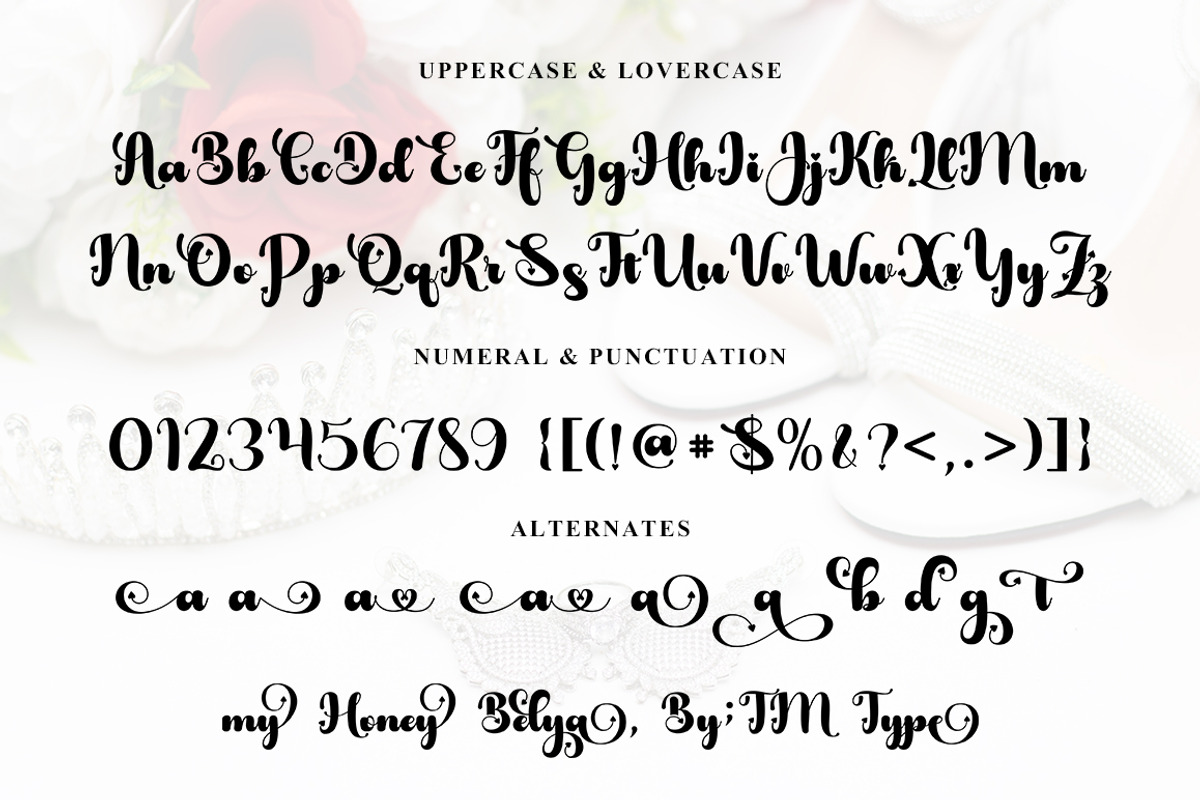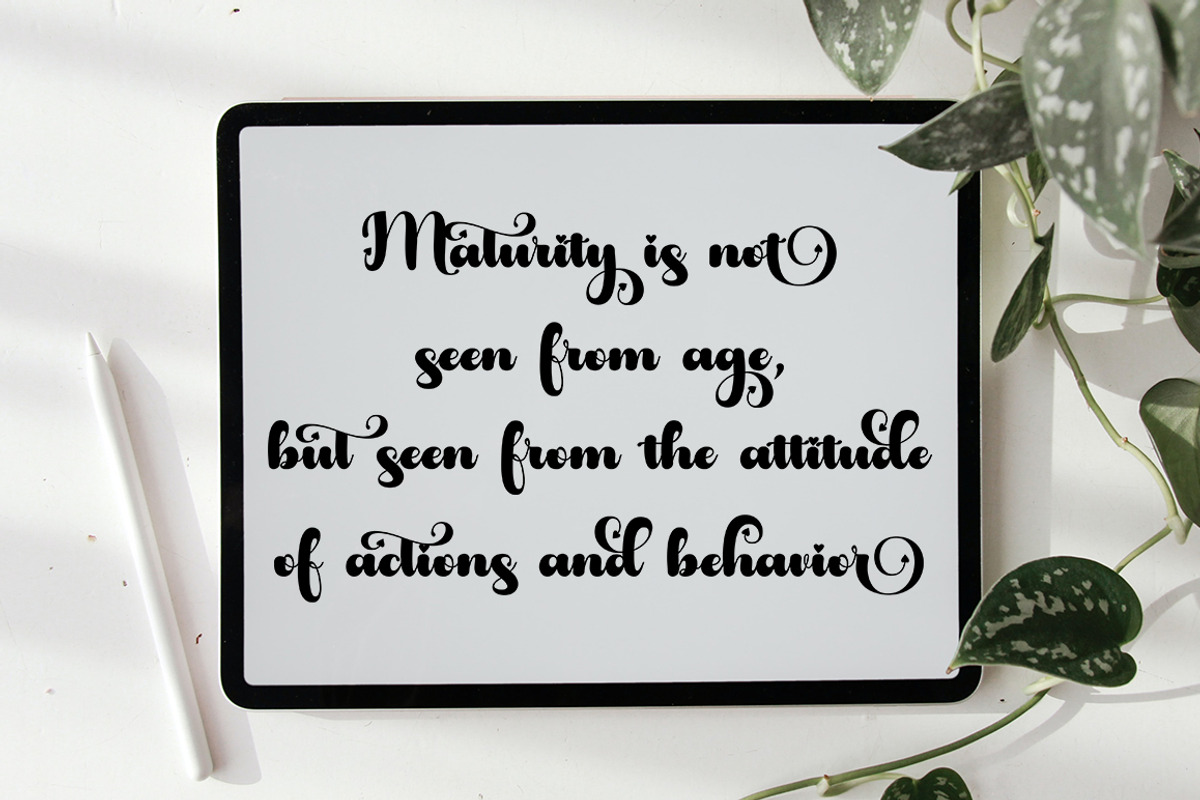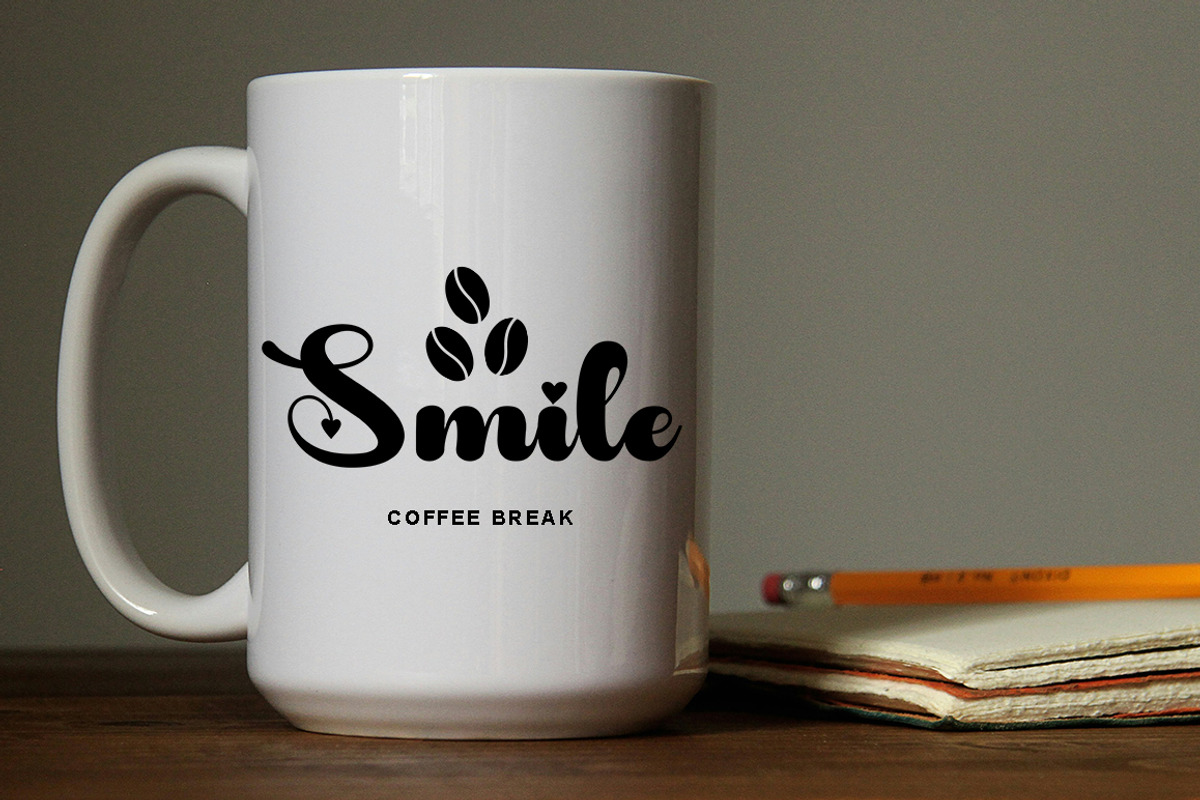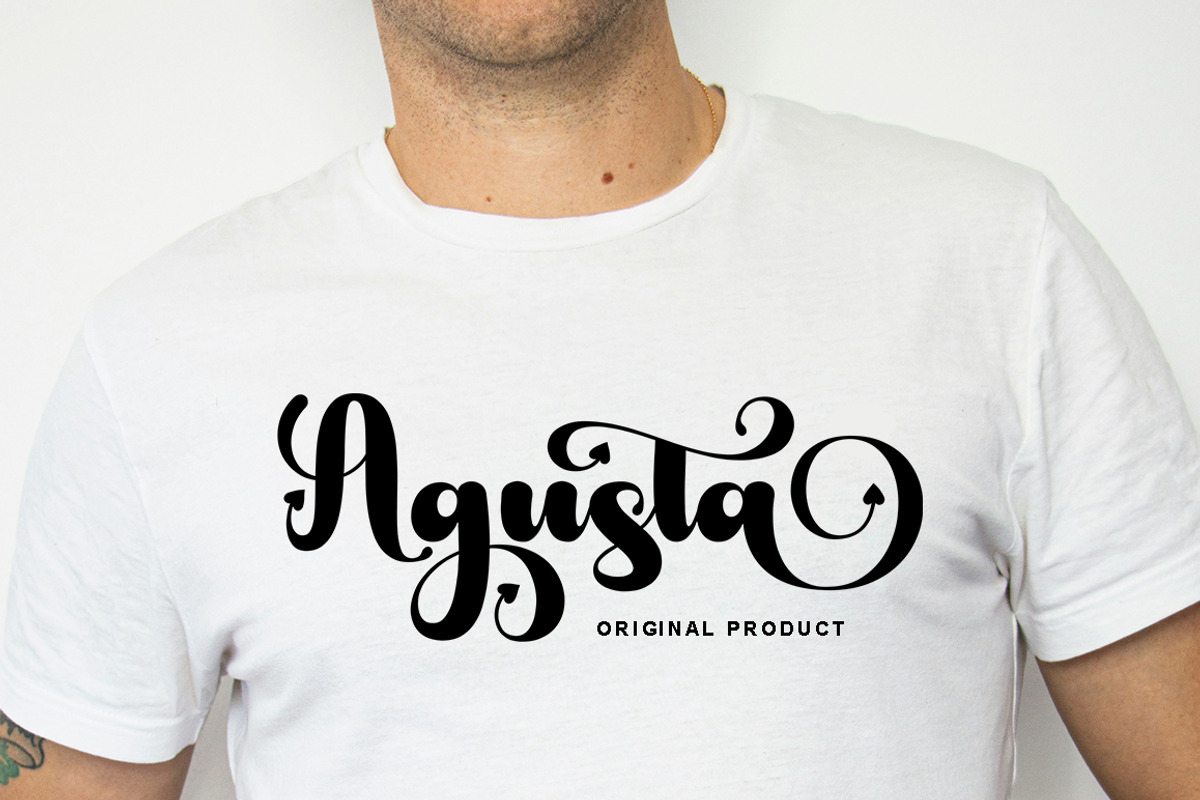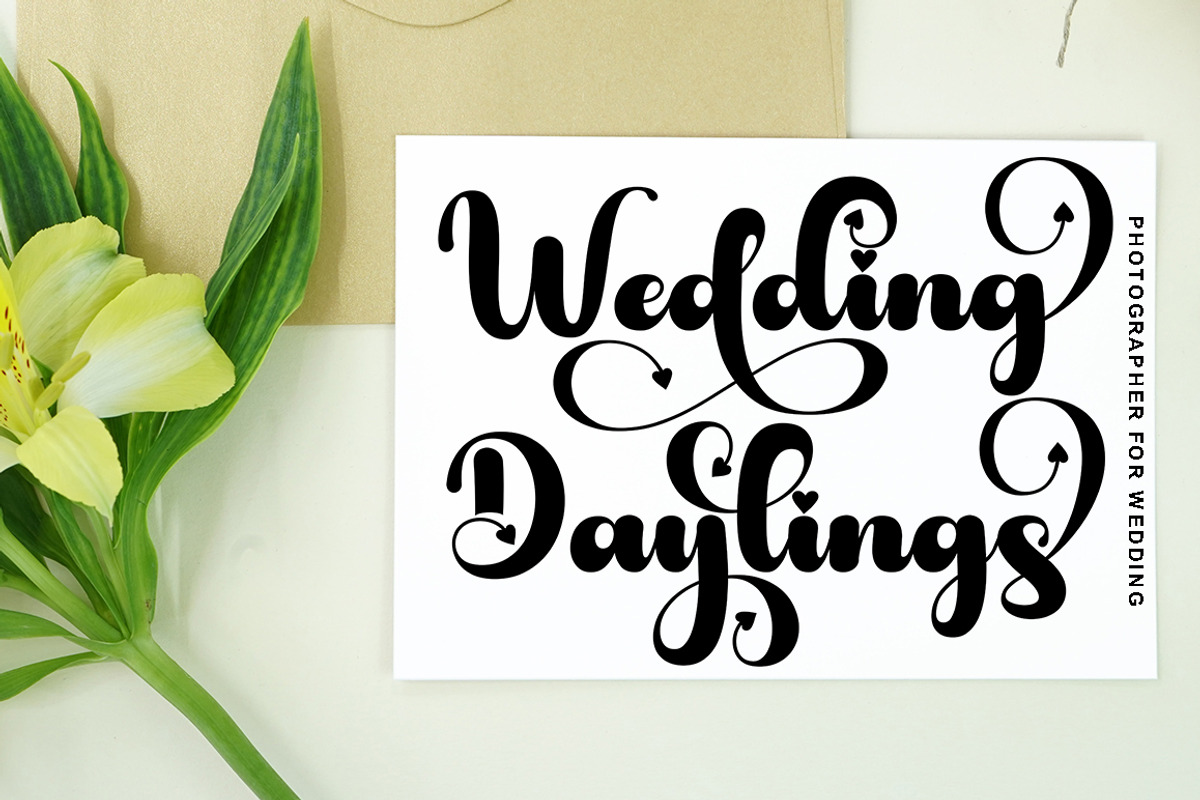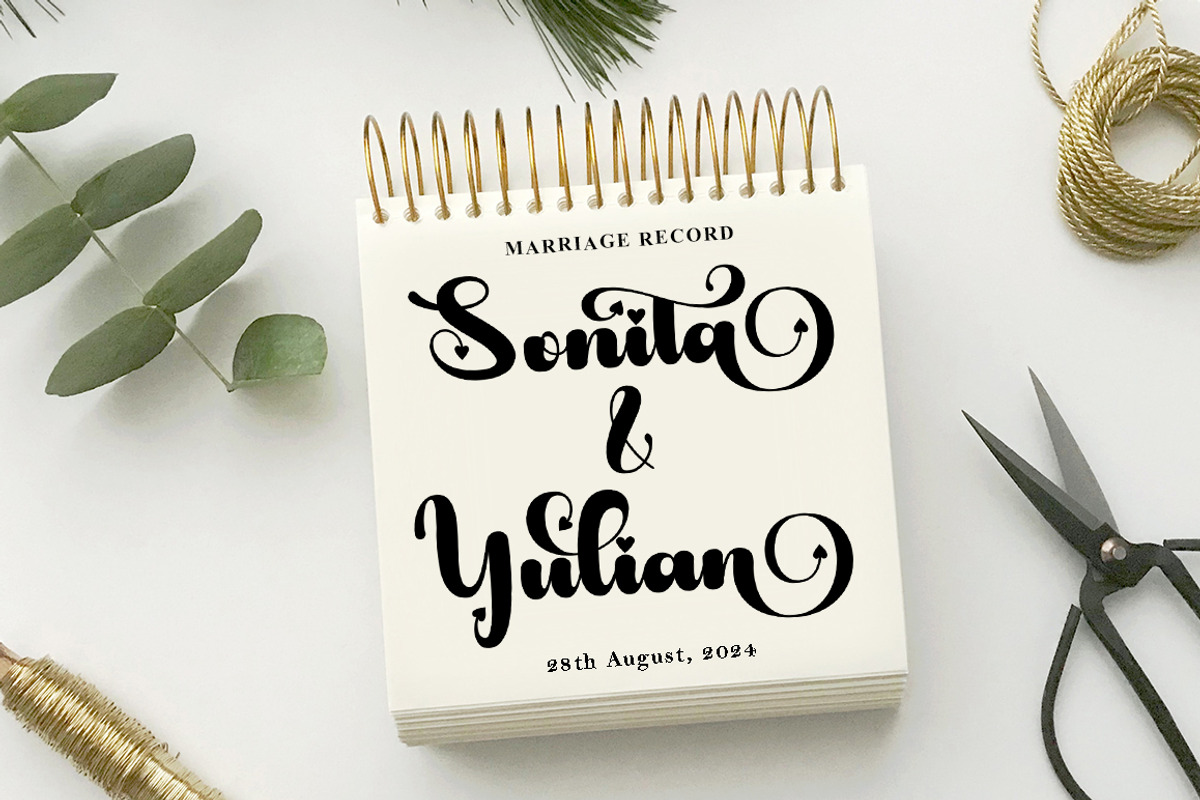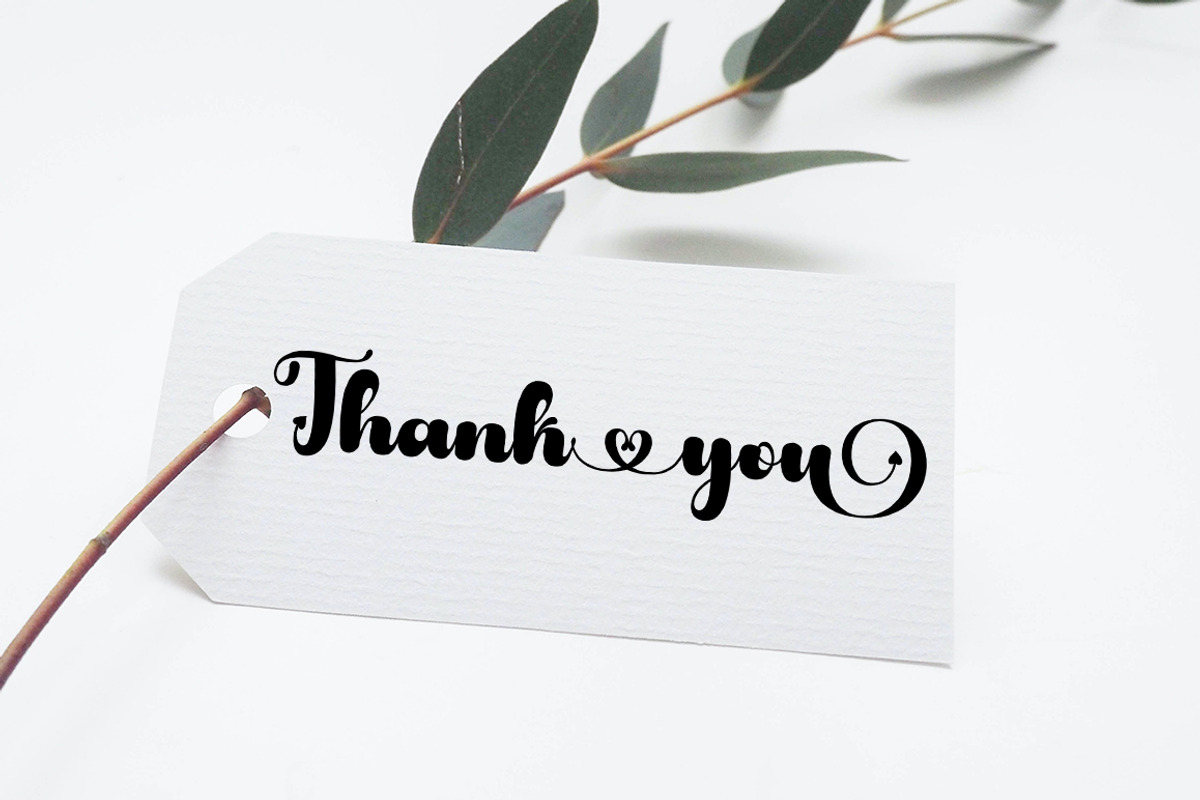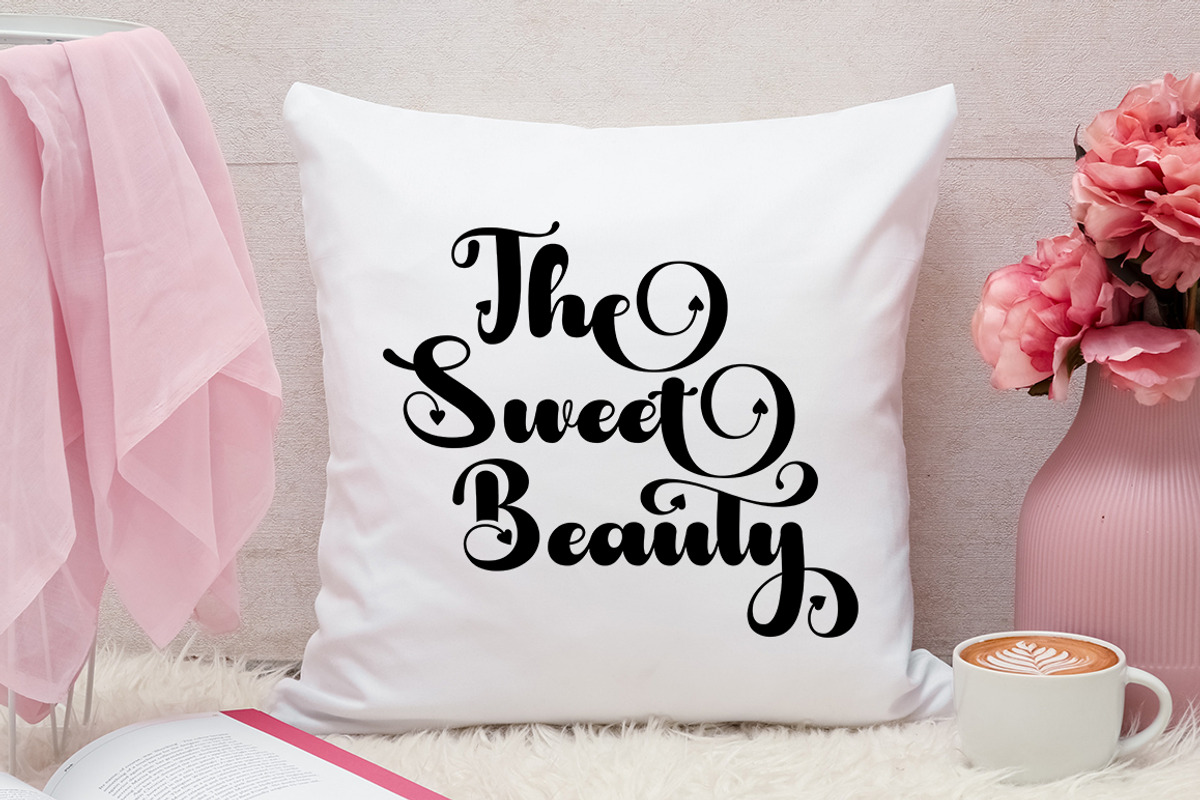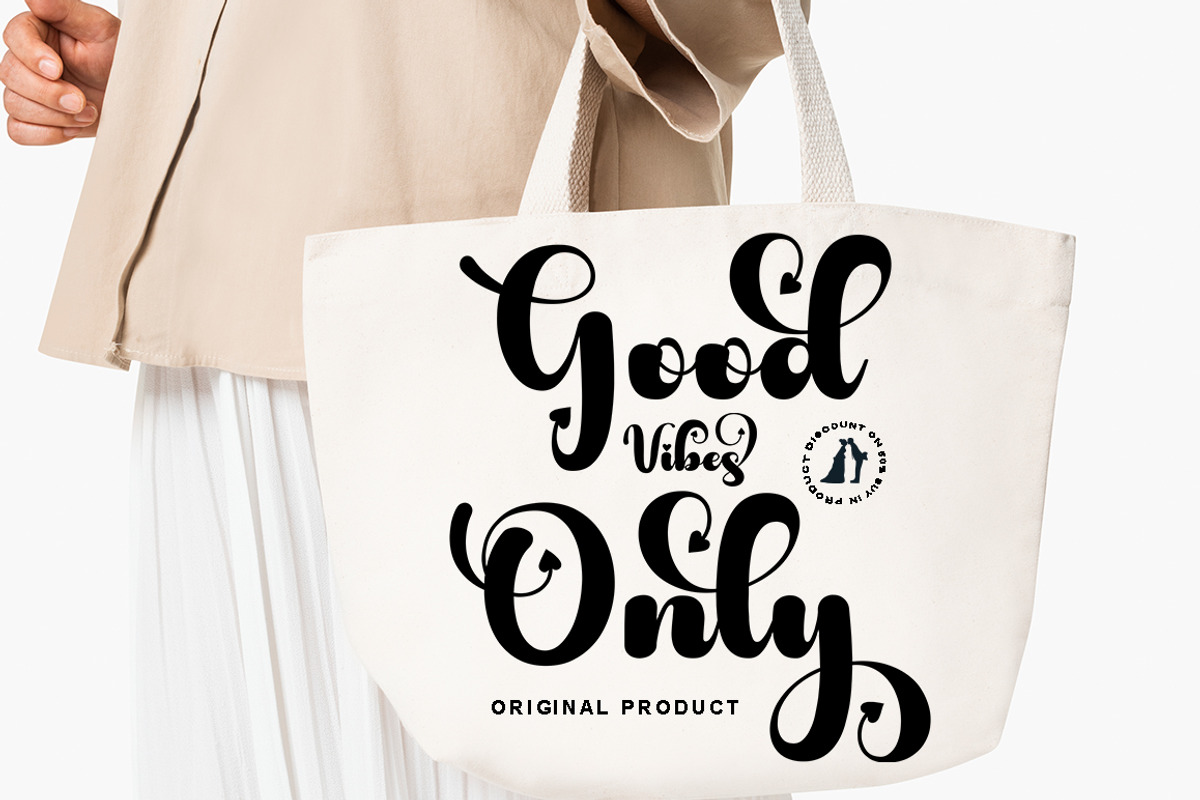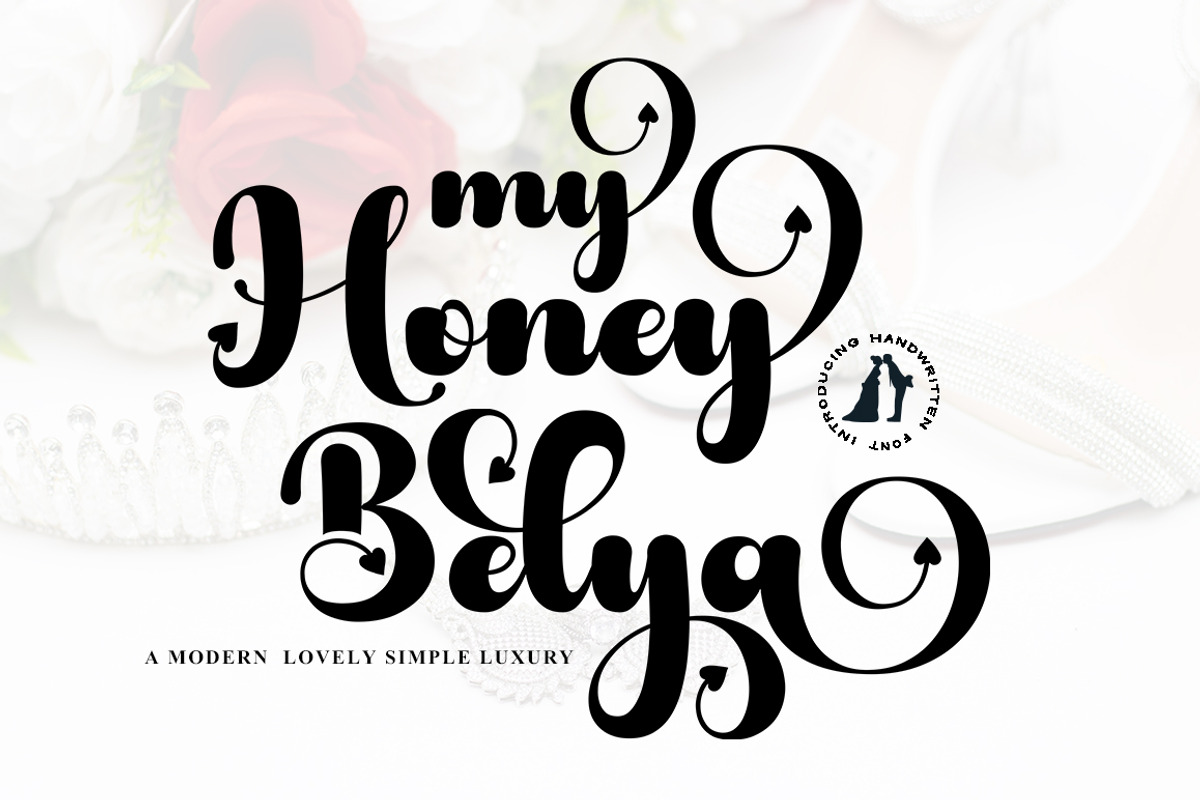
My Honey Belya
My Honey Belya is a beautiful handwritten font with a touch of love. Equipped with many glyphs My Honey Belya is perfect for branding projects, homeware design, product packaging, use in business cards, invitation cards, etc. Simply as a stylish text overlay on a background image or anything that needs an elegant touch.